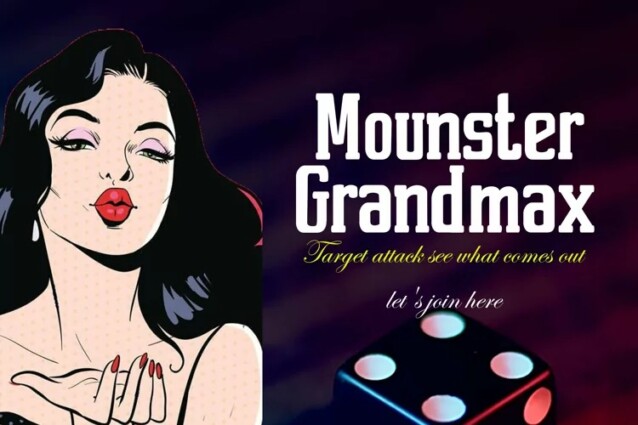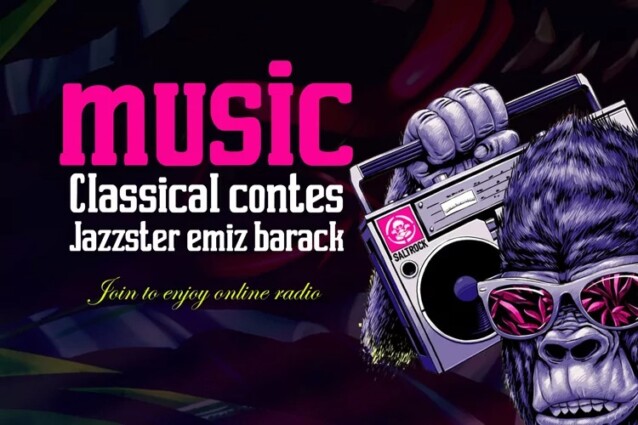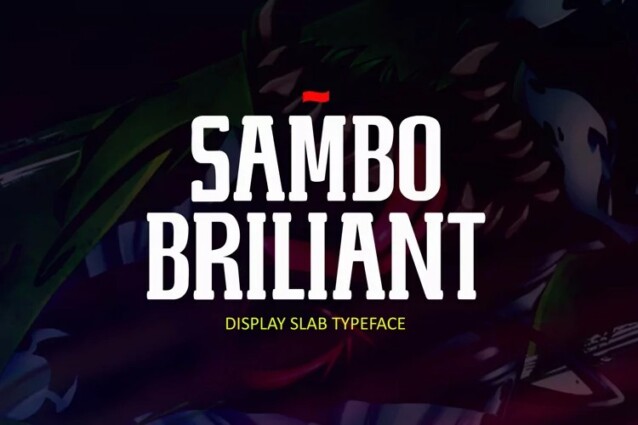
Sambo Briliant Font
Sambo Briliant Font is a modern yet timeless serif display font manufactured by Gian Studio. One of my most recent first releases, naturally drawn with pinpoint accuracy. Sambo Brilliant has the perfect amount of simplicity and subtlety for your next project. It perfectly represents the retro and vintage aesthetic. This font for your next logo, invitation, and home decor project that needs a succinct alternative combination touch!